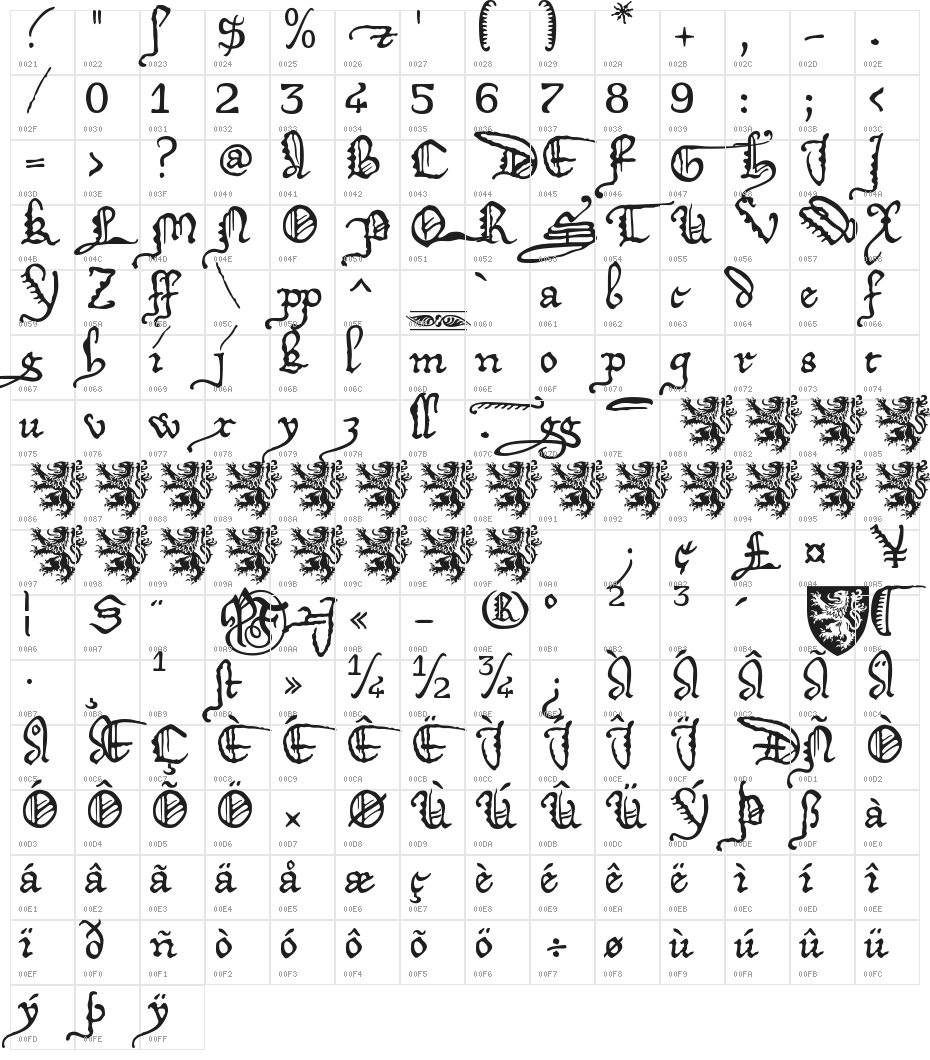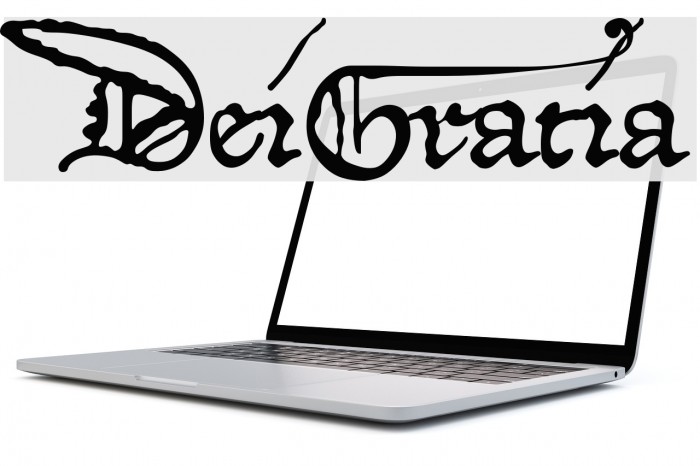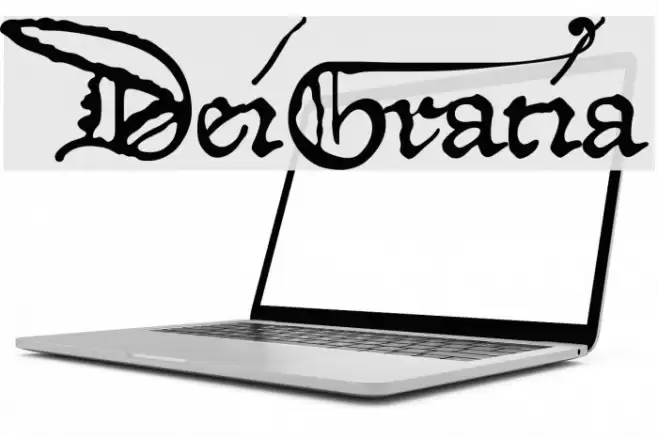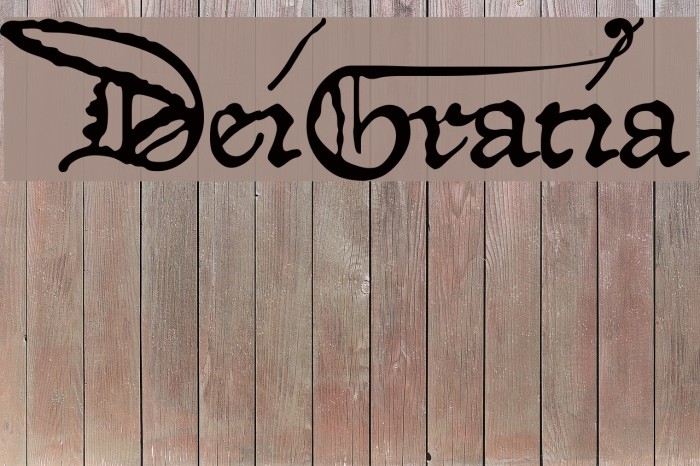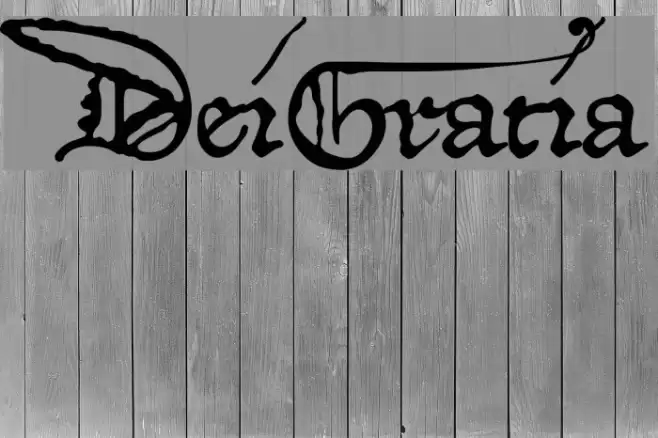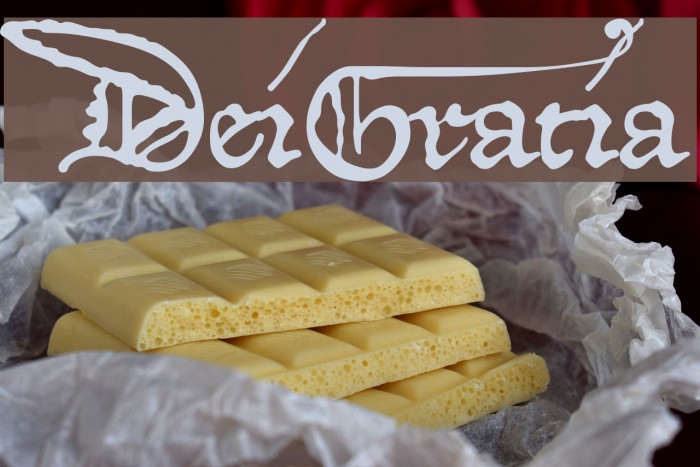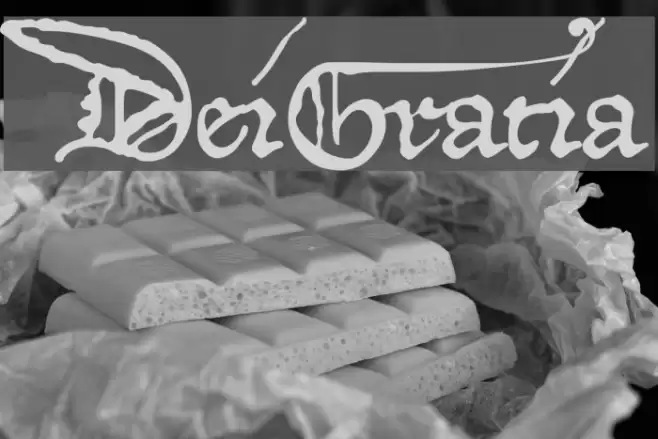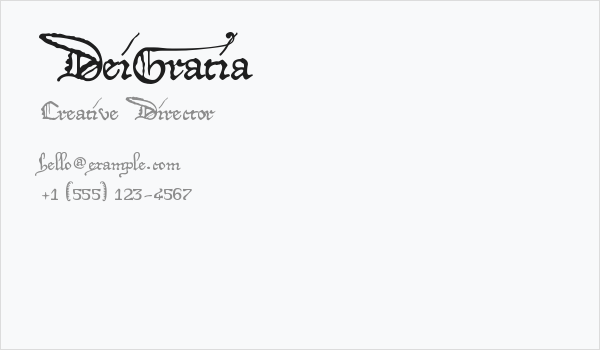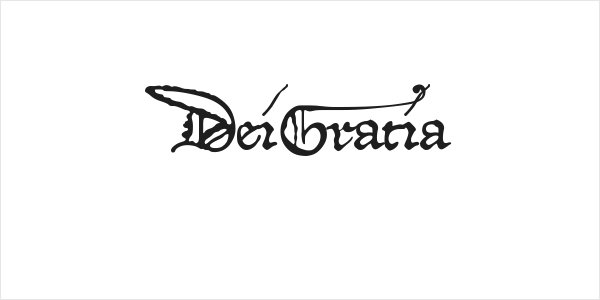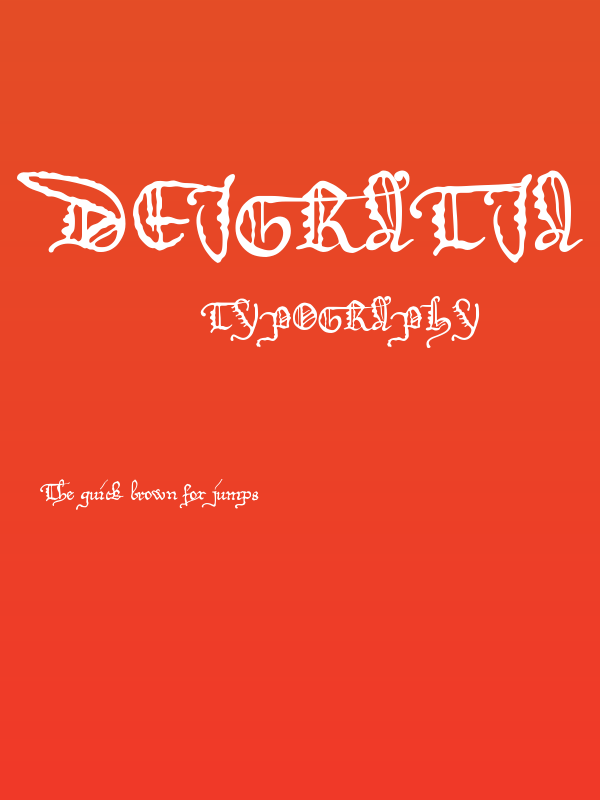
DeiGratia Font
DeiGratia Description
This font features an intricate and ornate design, reminiscent of medieval calligraphy. The uppercase letters are highly decorative, with elaborate flourishes and sharp serifs that give them a dramatic appearance. The lowercase letters maintain a similar style, with a slightly more fluid and connected form, enhancing the script-like quality. The numerals are bold and clear, contrasting with the more complex letterforms. Special characters are uniquely styled, adding to the overall decorative theme. This font's high contrast in stroke thickness and detailed embellishments make it stand out, suitable for projects that require a historical or gothic aesthetic.
| Proposed Projects | Ideal for historical-themed designs, gothic posters, book covers, or any project needing a dramatic and decorative touch. |